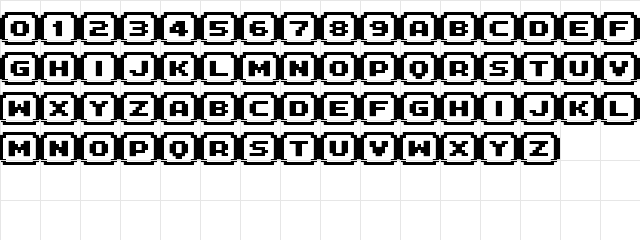
FFF Interface05b Regular Font Preview
FFF Interface05b Regular
FFF Interface05b Regular Font Details
Design Context for FFF Interface05b Typeface
FFF Interface05b is a composed and adaptable typeface that performs quietly and consistently across a wide range of design contexts.